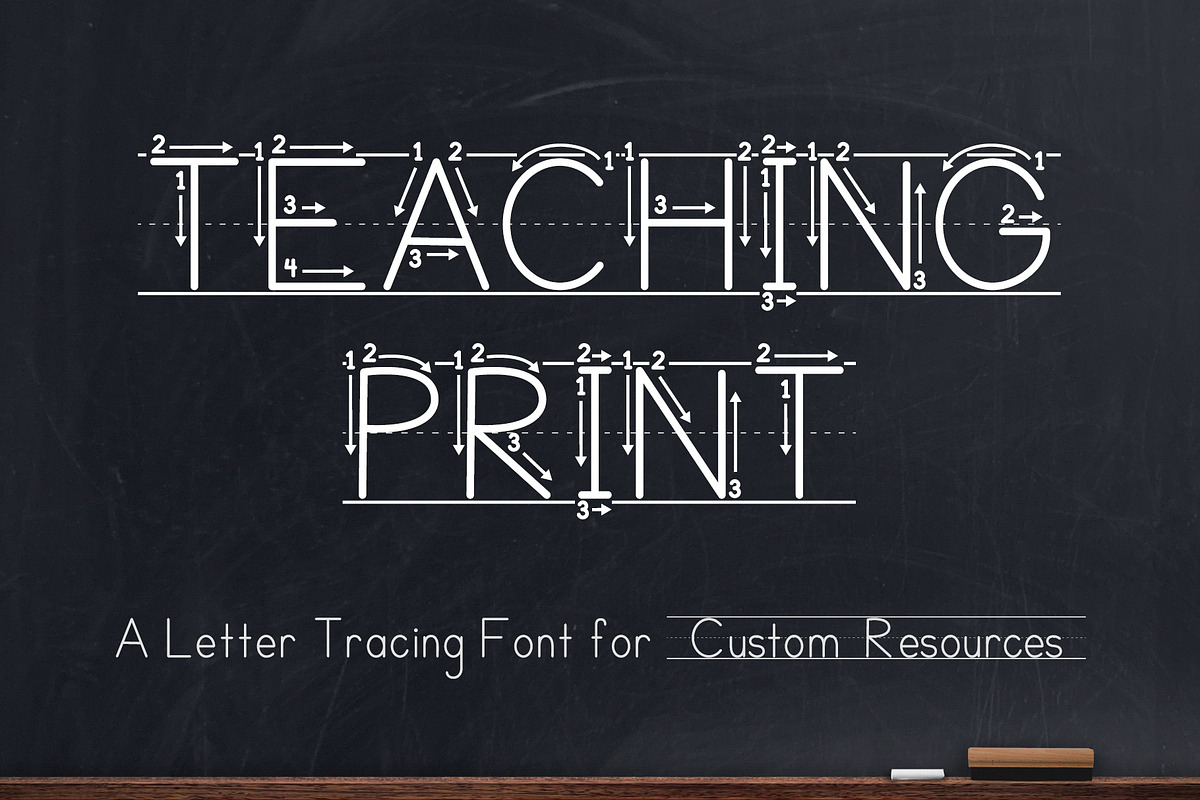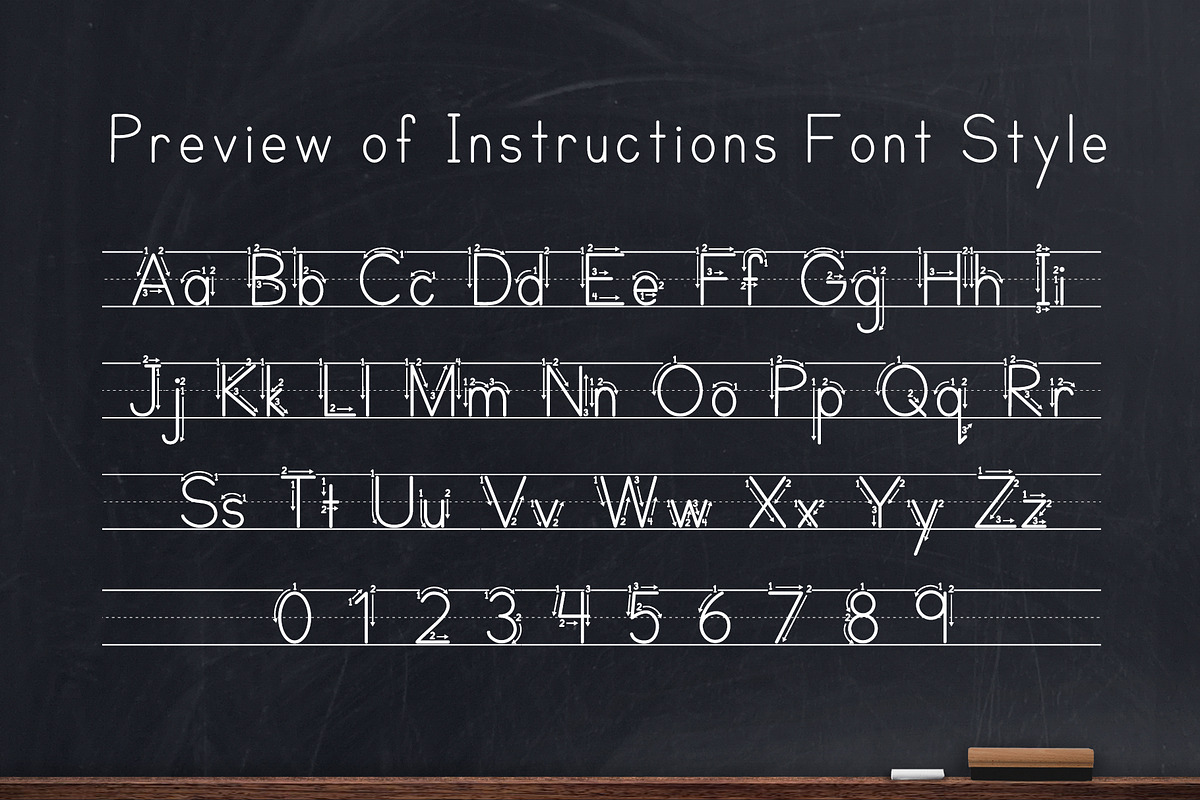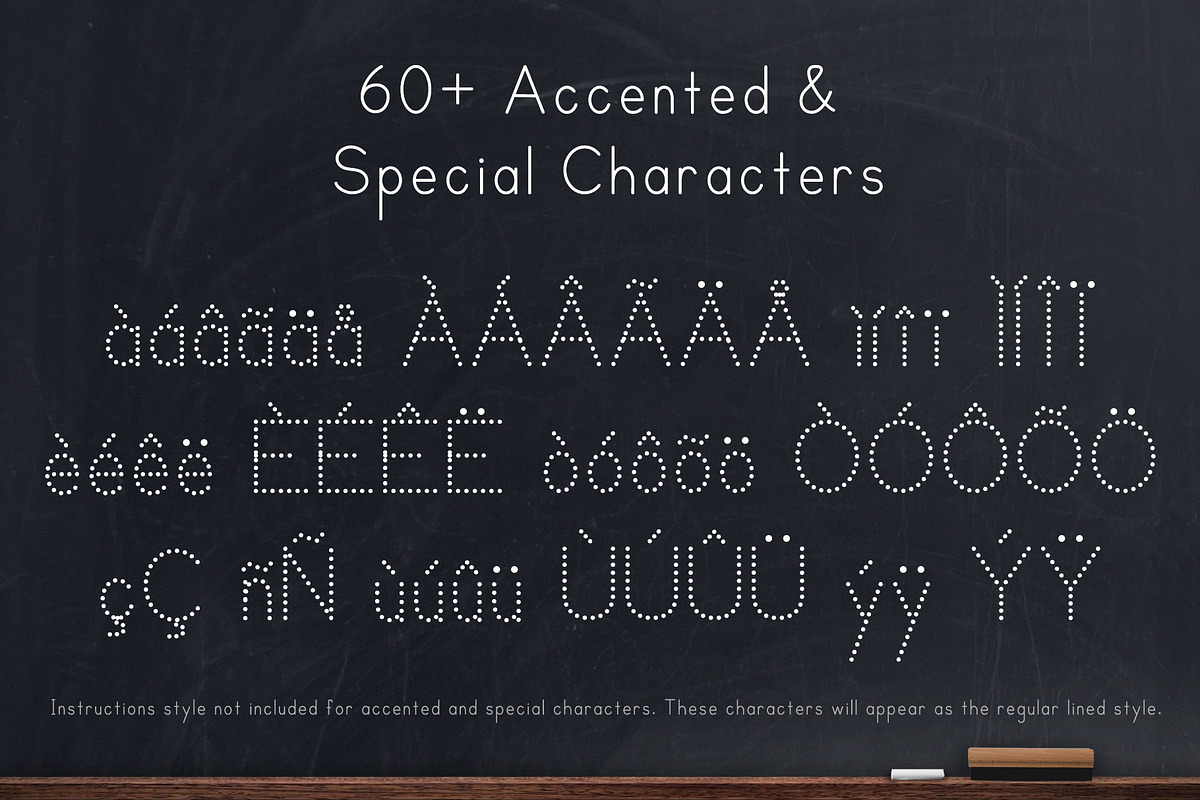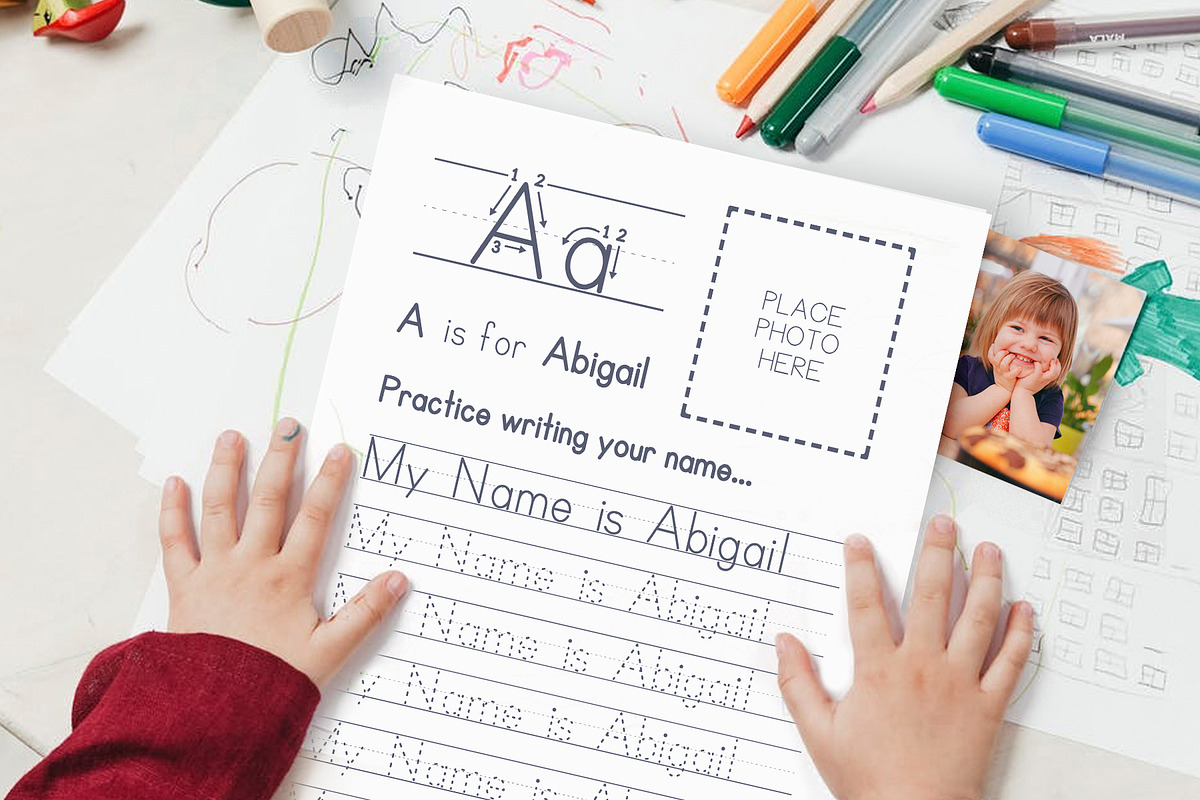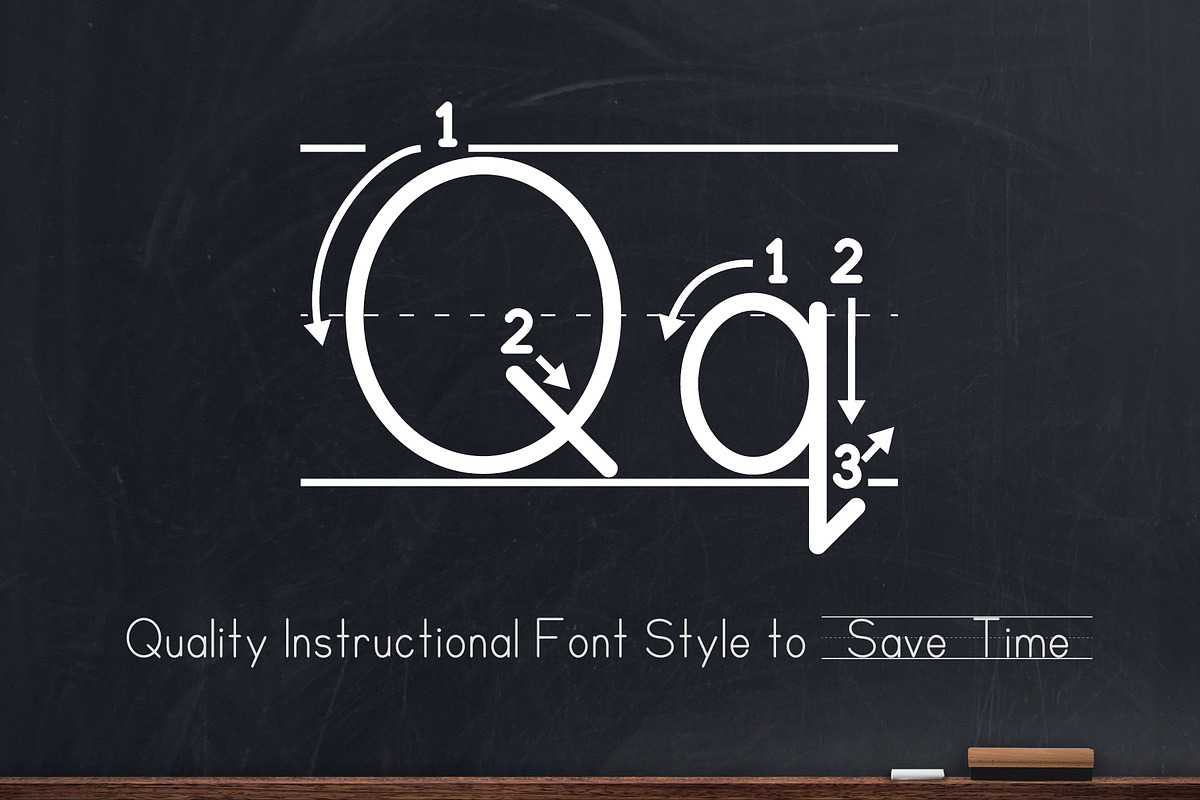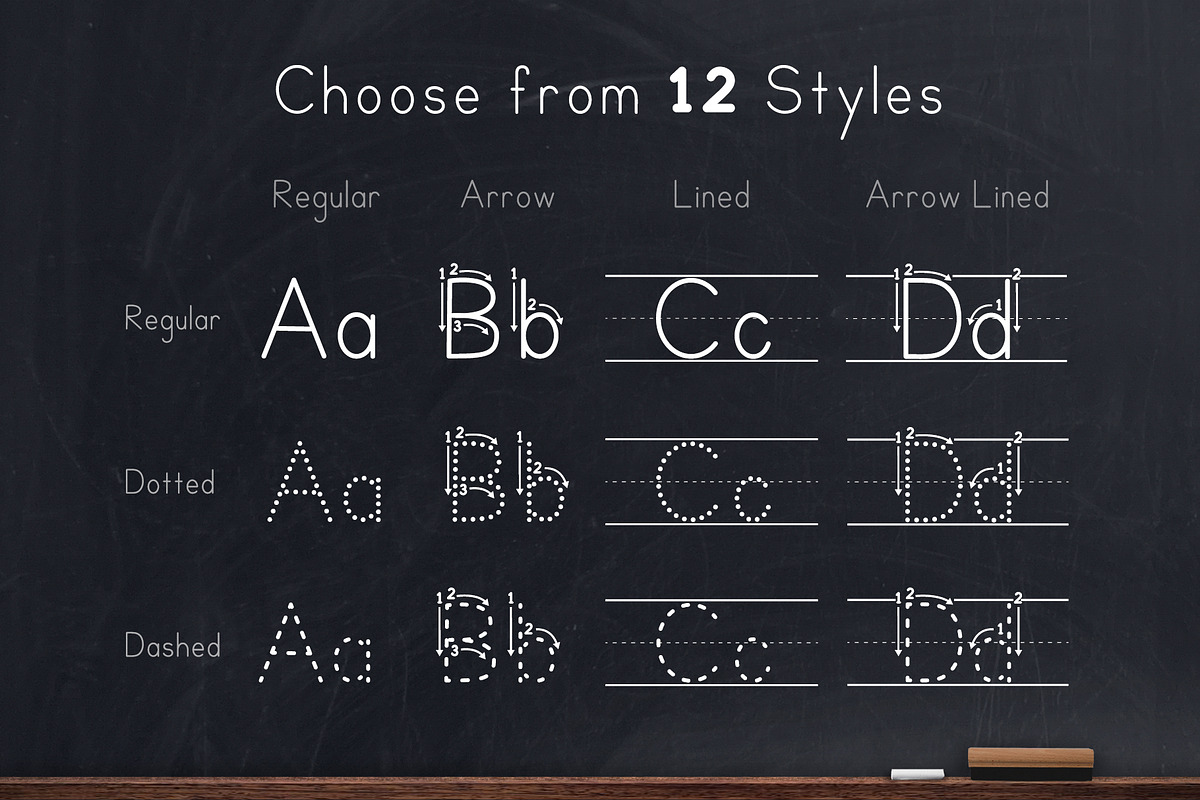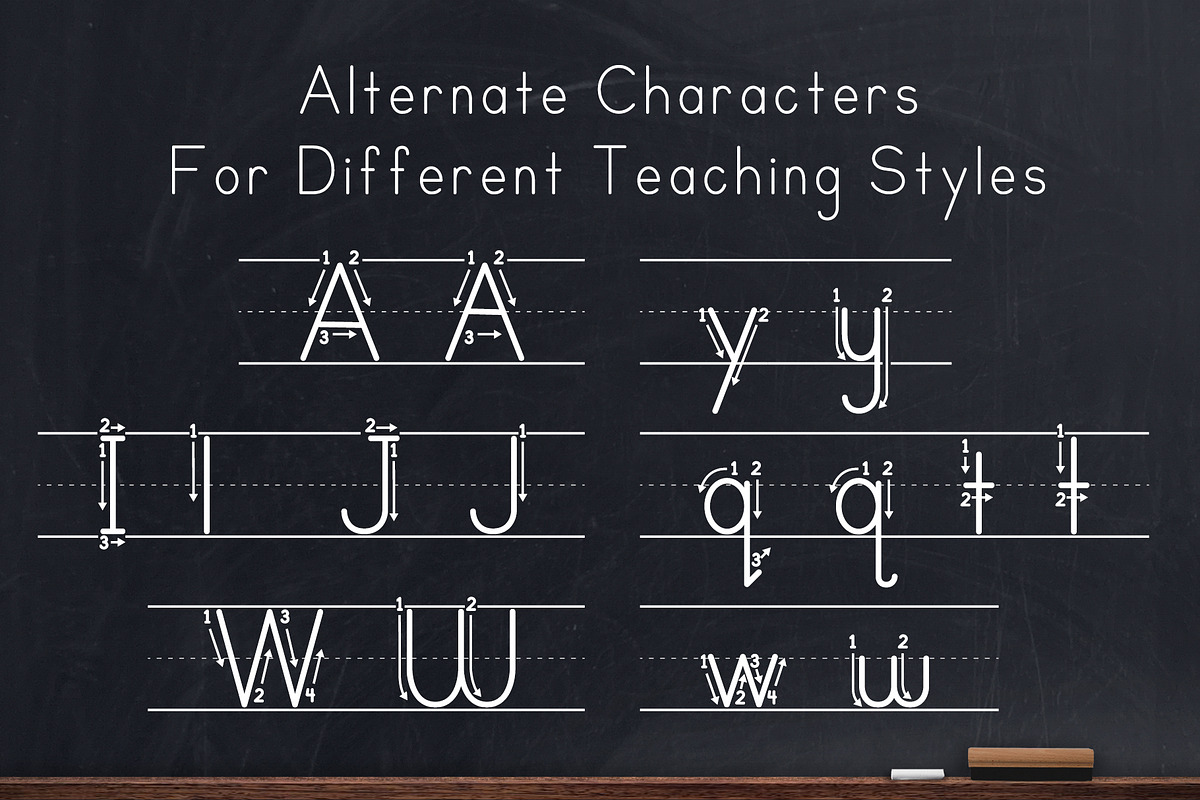
Teaching Print Letter Tracing Font
This letter tracing font is for teachers & learners of any skill level looking to create their own custom handwriting sheets to capture the attention of their kiddos and keep them engaged.
By including your child's name, they are more likely to be engaged in learning how to write, read and recognize letters. This will quickly spark an interest in writing by allowing your little students to see their own name (or things they are interested in) on the page. It’s the perfect font for preschool, kindergarten, homeschool or parents.
The font includes 12 styles:
Lined:
- Dotted
- Dashed
- Arrows
- Arrows Dotted
- Arrows Dashed
Not Lined:
- Dotted
- Dashed
- Arrows
- Arrows Dotted
- Arrows Dashed